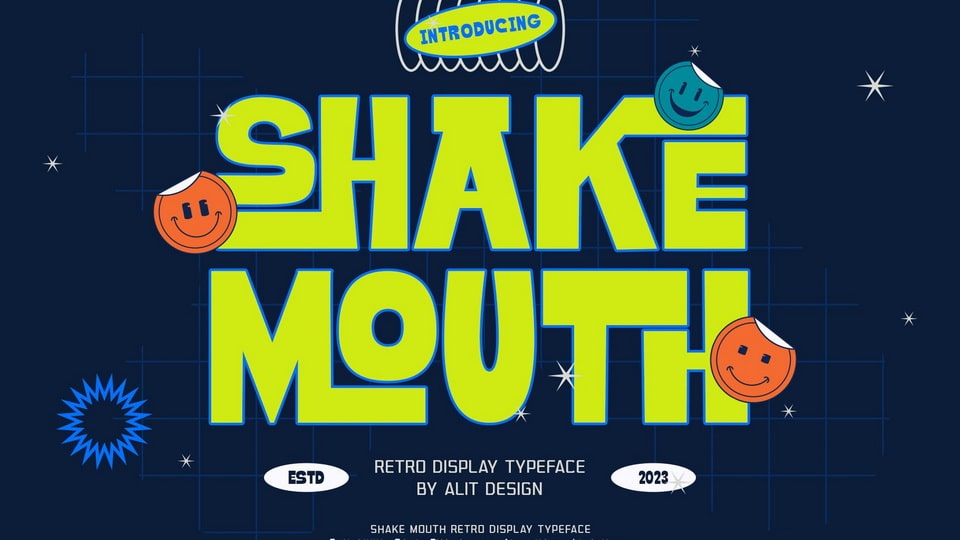
Download Shake Mouth font, a stunning retro-style sans serif display font that brings a sense of timeless charm to your creative endeavors. With its unique design and a plethora of features, Shake Mouth is a must-have font for designers, typographers, and creatives alike.